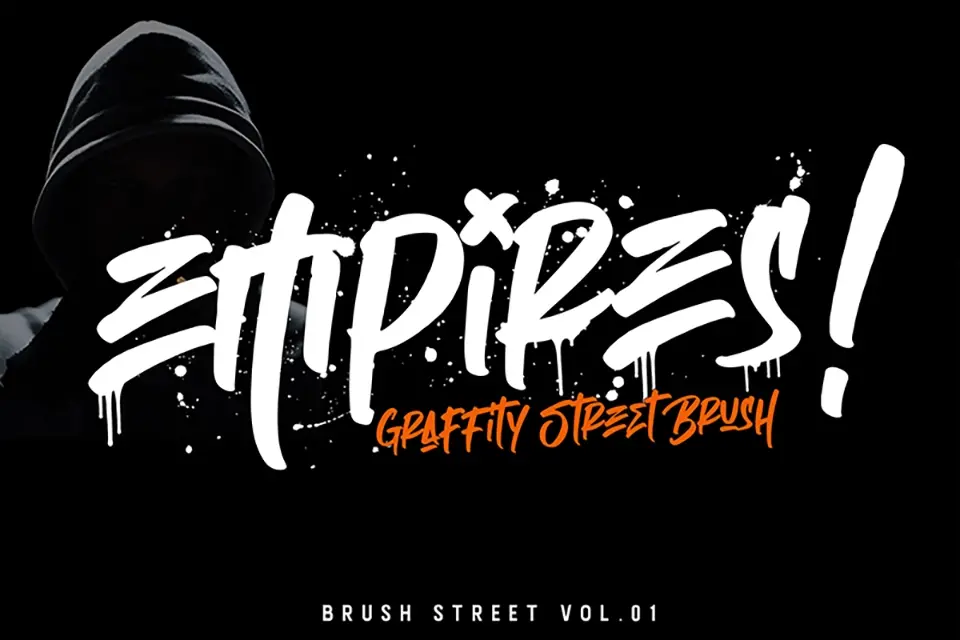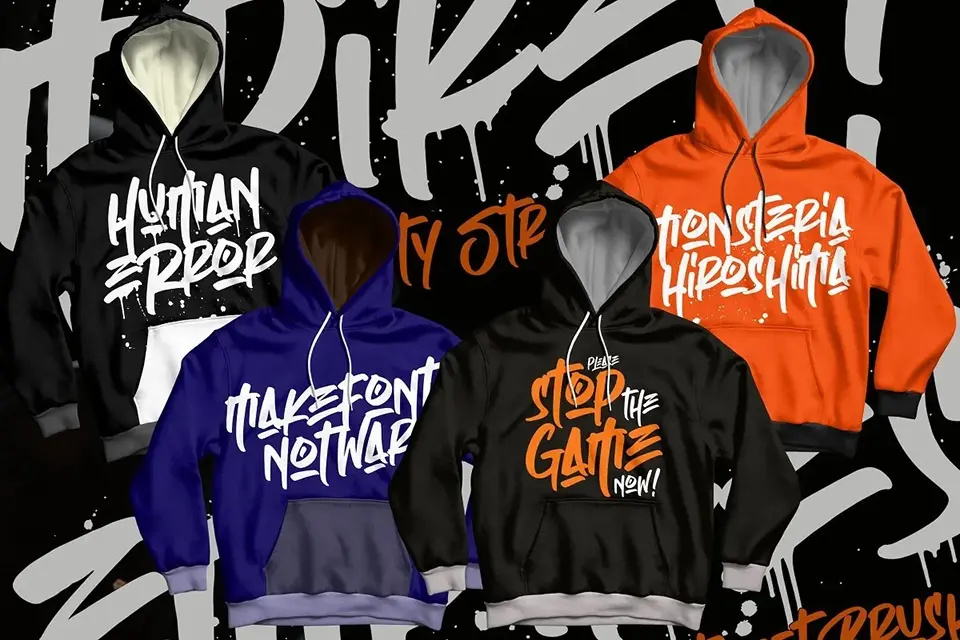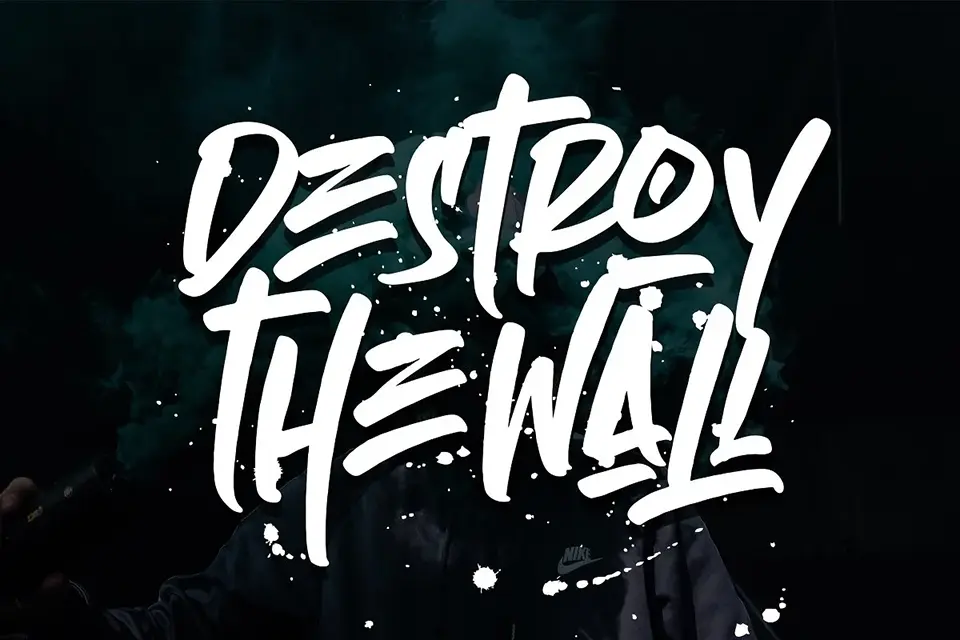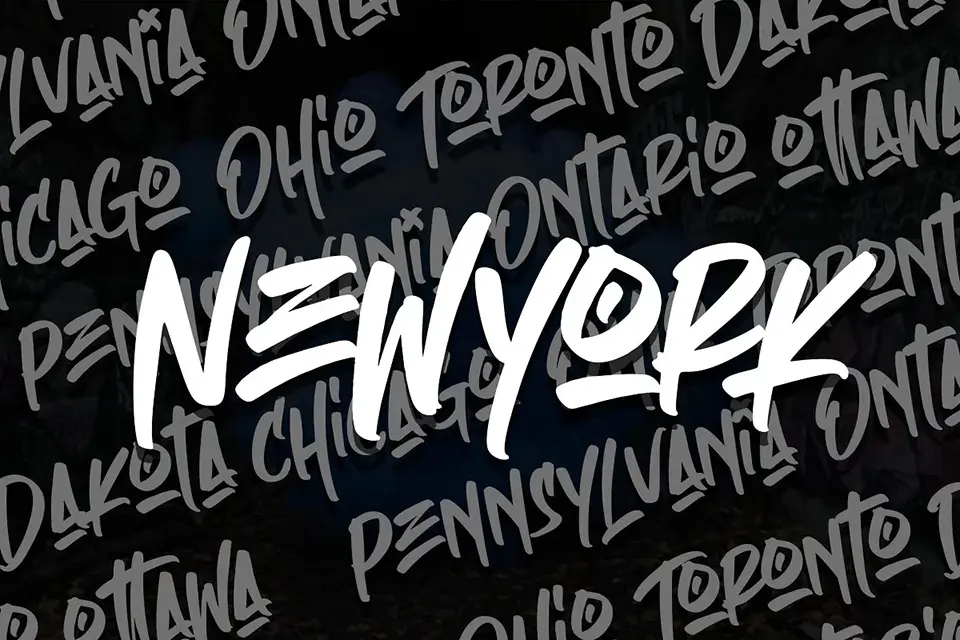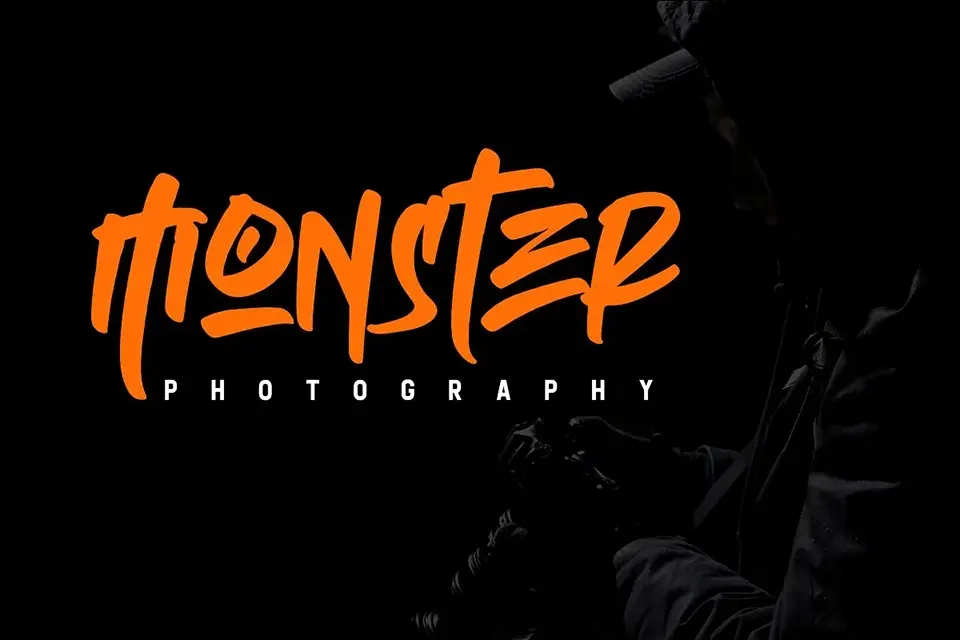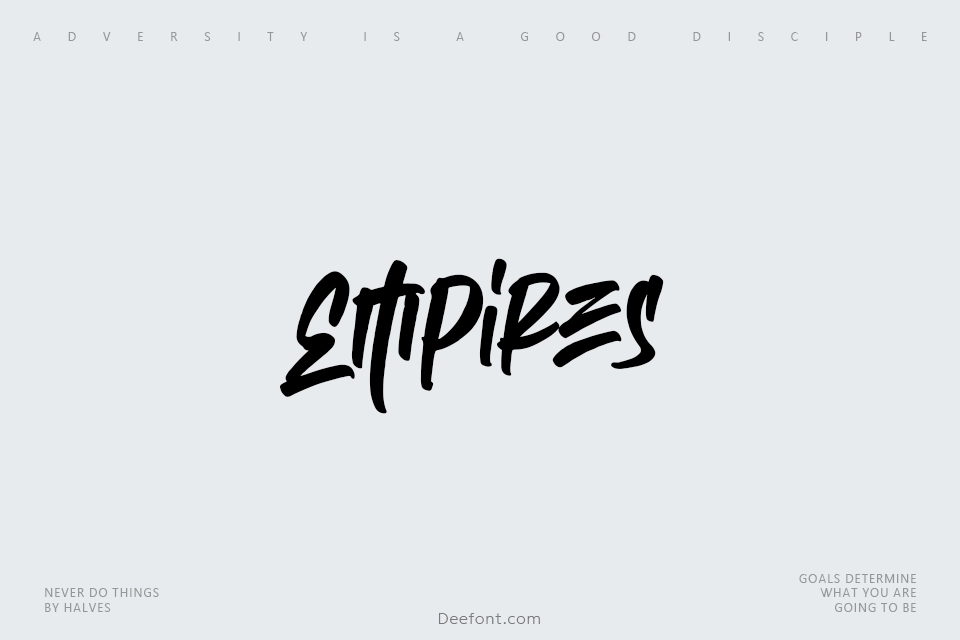
Empires Font
Empires Font is a supercharged, street-wise brush font bursting with energy and dynamic character. Perfect for logos, apparel, t-shirts, hoodies, quotes, and product packaging, this graffiti-inspired typeface delivers a typographic turbo-boost to any project. The font includes the standard Empires Regular version ideal for titles and logos, plus Empires X Swash offering unique splash variations. With its hand-drawn upright script style and attention to quick strokes and sharp details, Empires brings premium signature feel and urban edge to luxury branding, special events, and creative designs that demand attention.